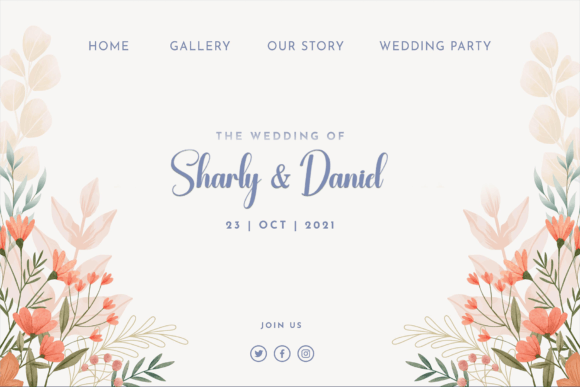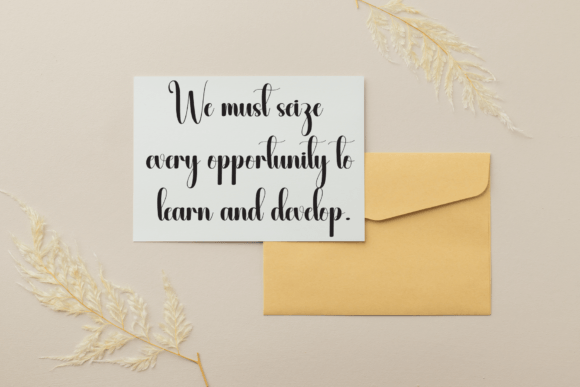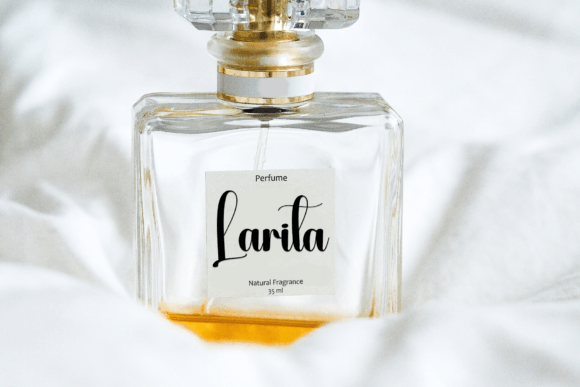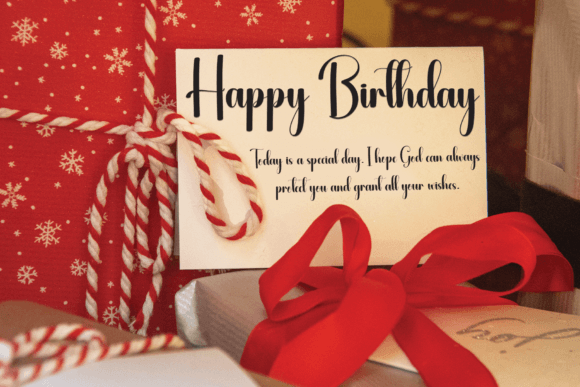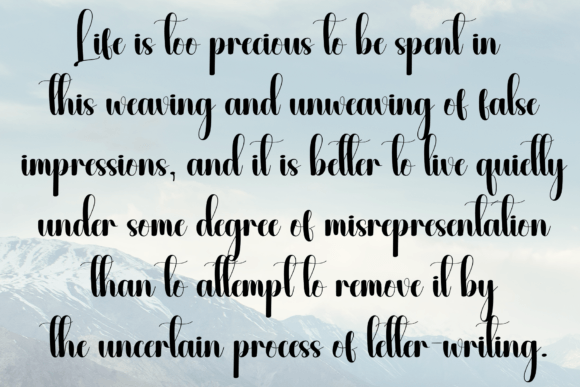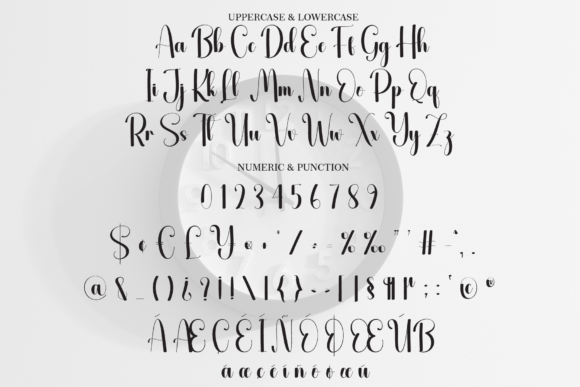
Introducing Breaktime Font: The Sweet and Friendly Handwritten Font for Your Design Needs
Are you a designer or crafter looking for a font that can add a personal touch to your designs? Look no further than Breaktime Font, a sweet and friendly handwritten font that’s perfect for creating beautiful and eye-catching designs. In this article, we’ll take a closer look at Breaktime Font, its features, and how you can use it to elevate your designs.
What is Breaktime Font?
Breaktime Font is a fresh and casual handwritten font that’s ideal for writing wedding invitations, cards, or any other design that might need a lovely touch. This font is designed to bring a sense of warmth and friendliness to your designs, making it perfect for projects that require a personal and approachable feel.
Key Features of Breaktime Font
- Handwritten style: Breaktime Font has a beautiful handwritten style that’s perfect for creating unique and personalized designs.
- Sweet and friendly: This font has a sweet and friendly tone that’s ideal for designs that require a warm and approachable feel.
- Fresh and casual: Breaktime Font has a fresh and casual vibe that’s perfect for modern designs.
- High-quality: This font is designed to be high-quality and easy to read, making it perfect for use in a variety of designs.
How to Use Breaktime Font in Your Designs
Breaktime Font is a versatile font that can be used in a variety of designs, including:
- Wedding invitations: This font is perfect for creating beautiful and elegant wedding invitations that will set the tone for your special day.
- Cards: Breaktime Font is ideal for creating greeting cards, birthday cards, and other types of cards that require a personal touch.
- Social media graphics: This font can be used to create eye-catching social media graphics that will help you stand out from the crowd.
- Logos and branding: Breaktime Font can be used to create unique and memorable logos and branding materials that will help you establish your brand identity.
Why Choose Breaktime Font?
There are many reasons why you should choose Breaktime Font for your design needs. Here are just a few:
- Unique and personalized: Breaktime Font allows you to create unique and personalized designs that will help you stand out from the crowd.
- High-quality: Breaktime Font is a high-quality font that’s designed to produce crisp and clear text.
Tips for Using Breaktime Font Effectively
Here are a few tips for using Breaktime Font effectively in your designs:
- Use it sparingly: Breaktime Font is a beautiful font, but it can be overwhelming if used too much. Use it sparingly to create a sense of balance in your design.
- Pair it with other fonts: Breaktime Font can be paired with other fonts to create a unique and interesting design.
- Experiment with different sizes and colors: Don’t be afraid to experiment with different sizes and colors to find the perfect combination for your design.
Breaktime Font is a sweet and friendly handwritten font that’s perfect for designers and crafters who want to add a personal touch to their designs. With its fresh and casual style, this font is ideal for creating beautiful and eye-catching designs that will help you stand out from the crowd. Whether you’re creating wedding invitations, cards, or social media graphics, Breaktime Font is a great choice. So why not give it a try and see how it can elevate your designs?